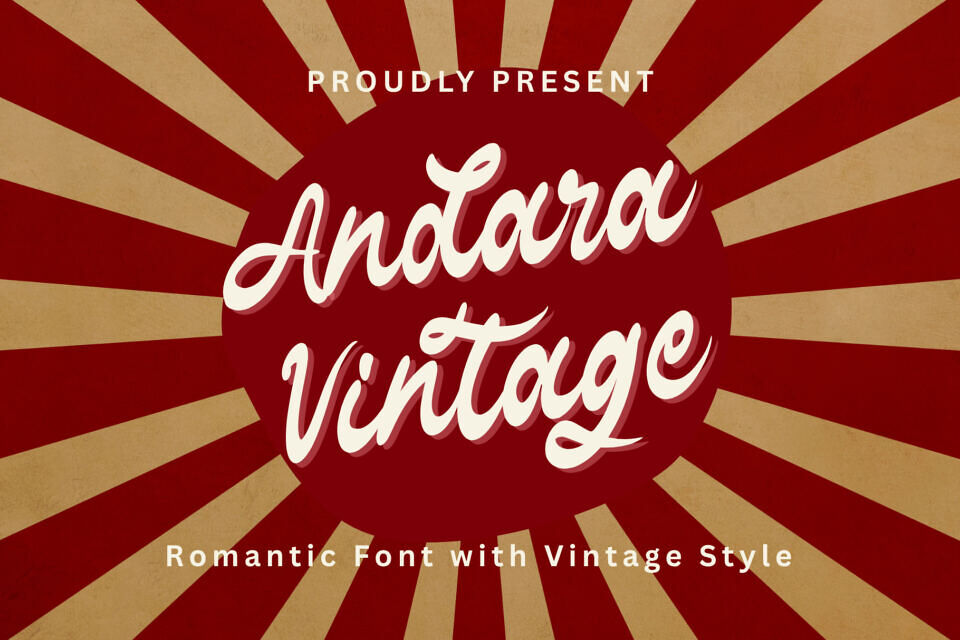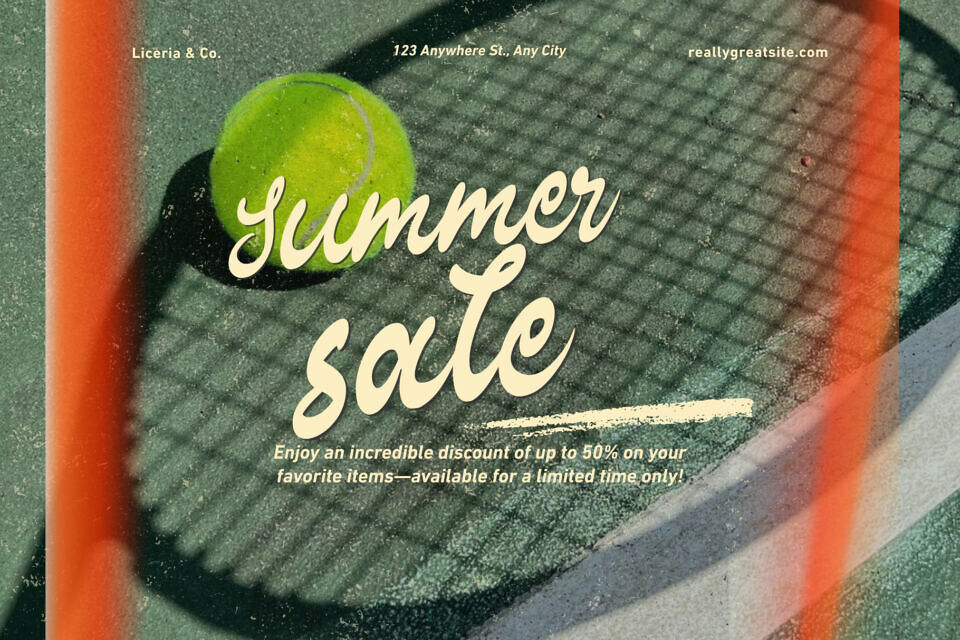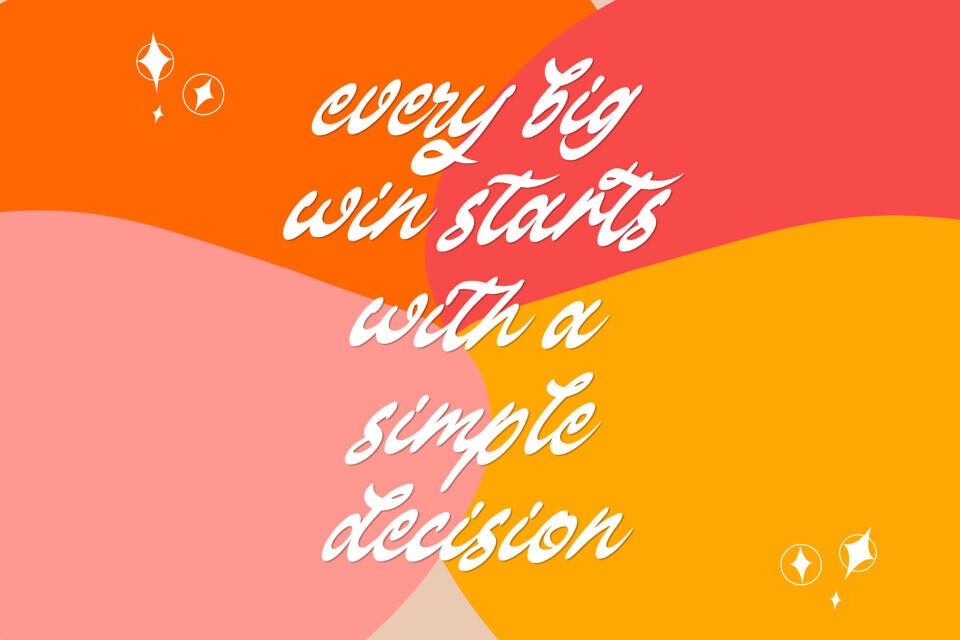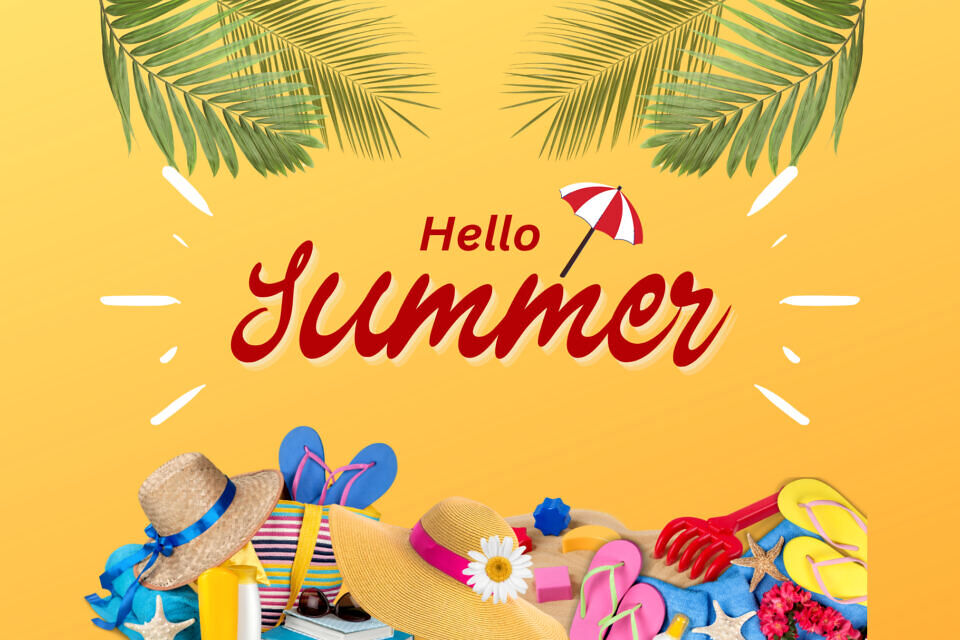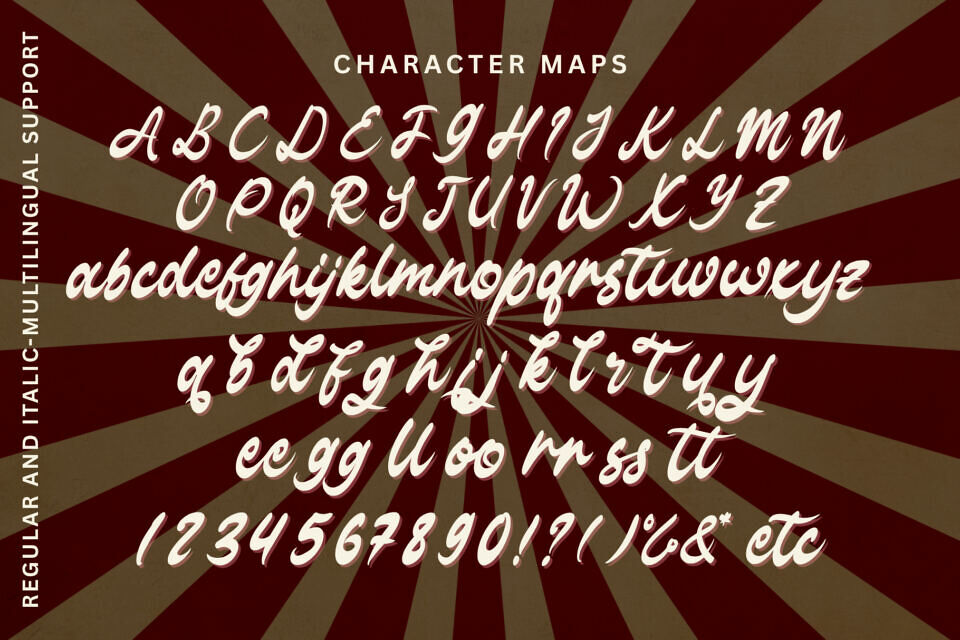
Andara Vintage is a stylish script font with a beautiful retro and romantic feel. It features smooth handwritten strokes, elegant curves, and charming ligatures that create a warm vintage look. Perfect for logos, branding, packaging, wedding designs, and social media, this font adds a timeless and classy touch to any project.